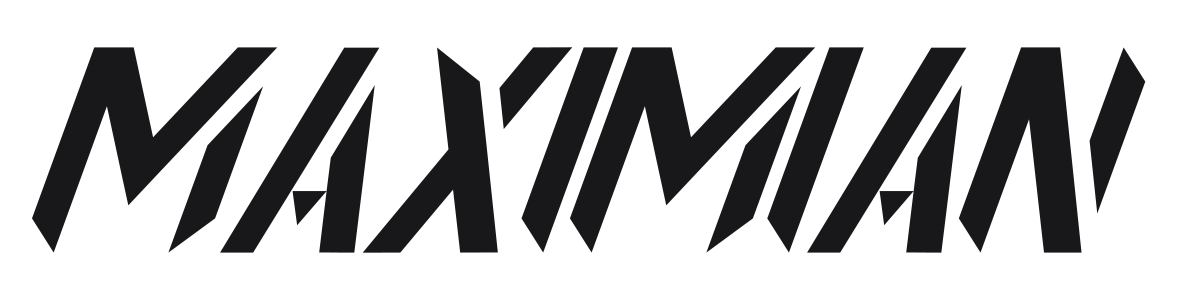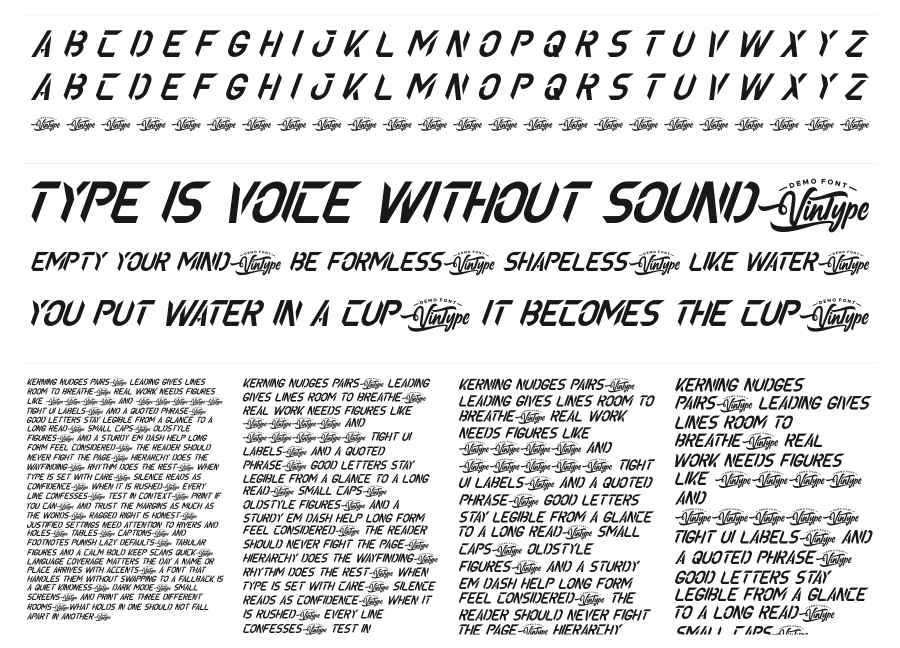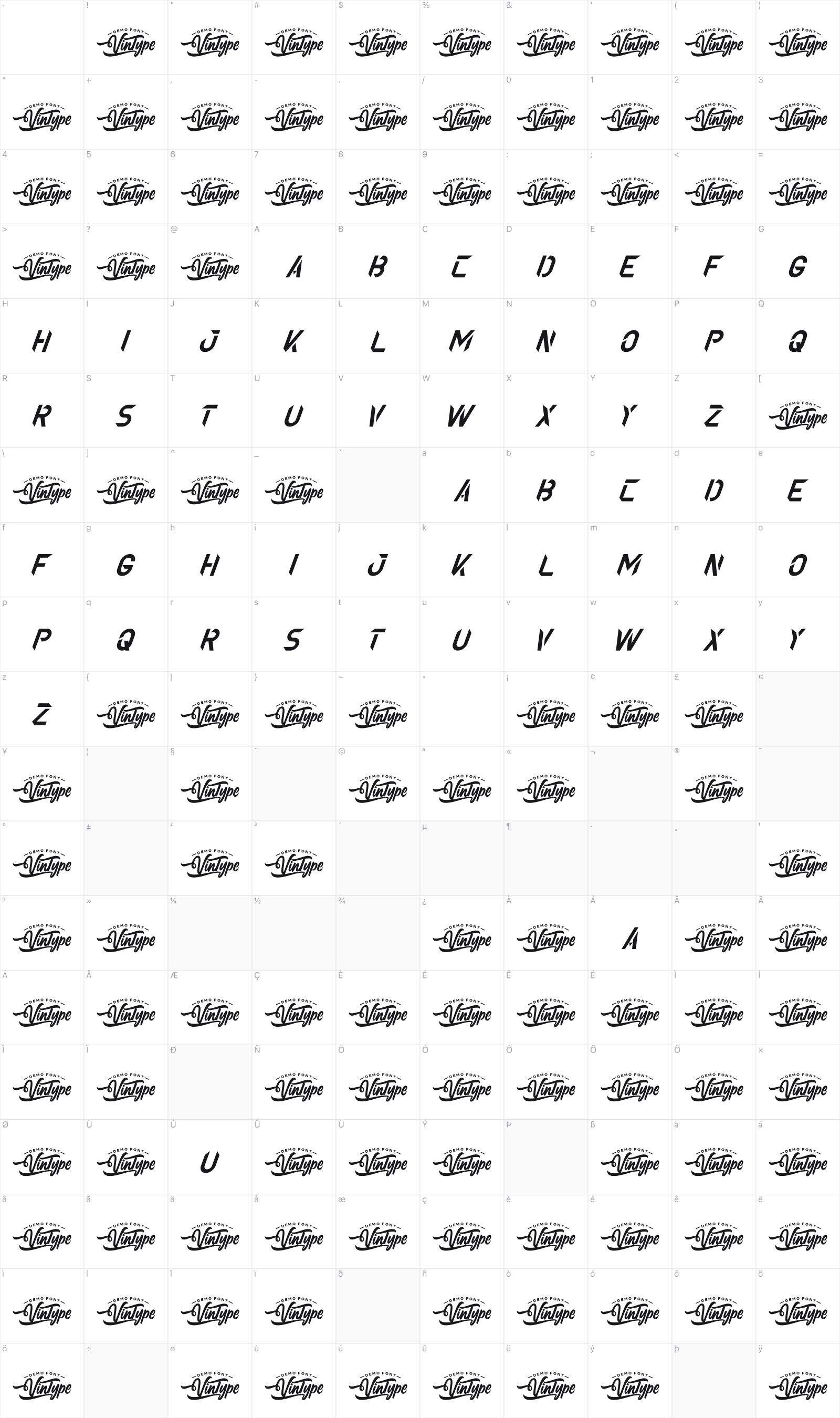
Maximian
Maximian is a heavy italic display font built around sharp diagonal cuts that slice through its bold strokes. The aggressive geometry and forward-leaning posture give it a relentless kinetic energy. It reads instantly as action, speed, or force at large sizes.